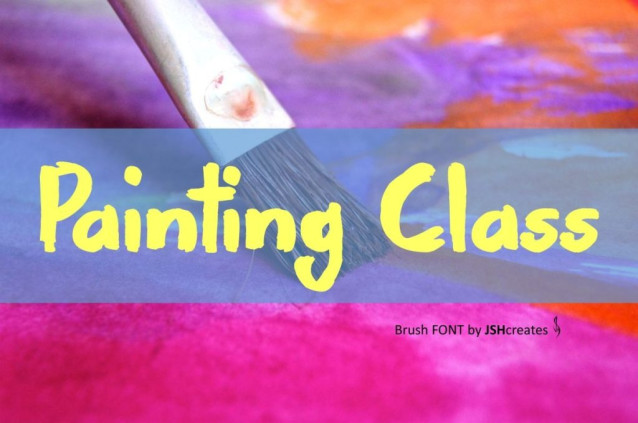
Painting Class Font
Painting Class Font – Hand lettered brush font. Perfect for advertising and display purposes, including banners, book covers, shirts, posters, logos and much more!
Font includes all upper and lowercase letters, numbers, characters and punctuation.